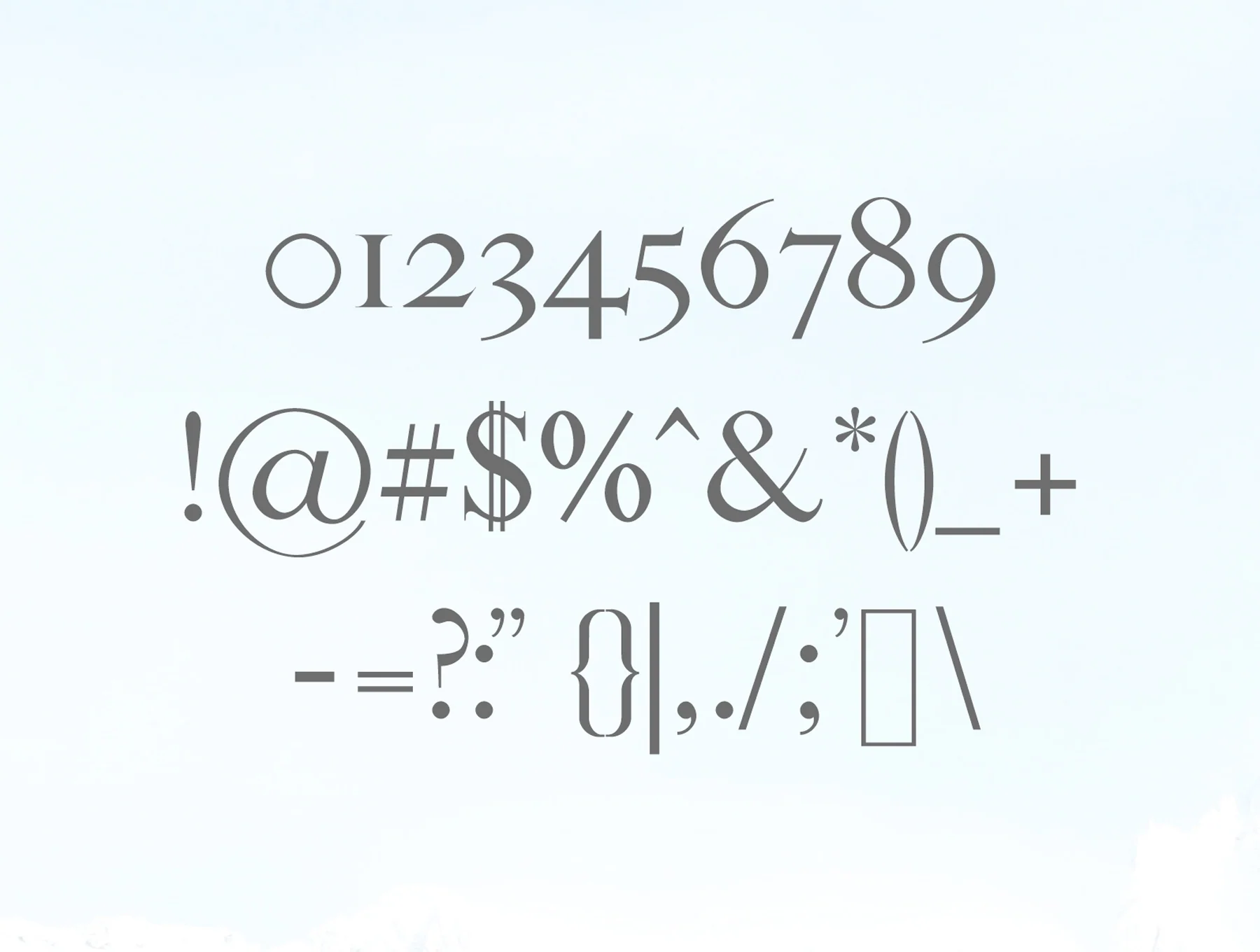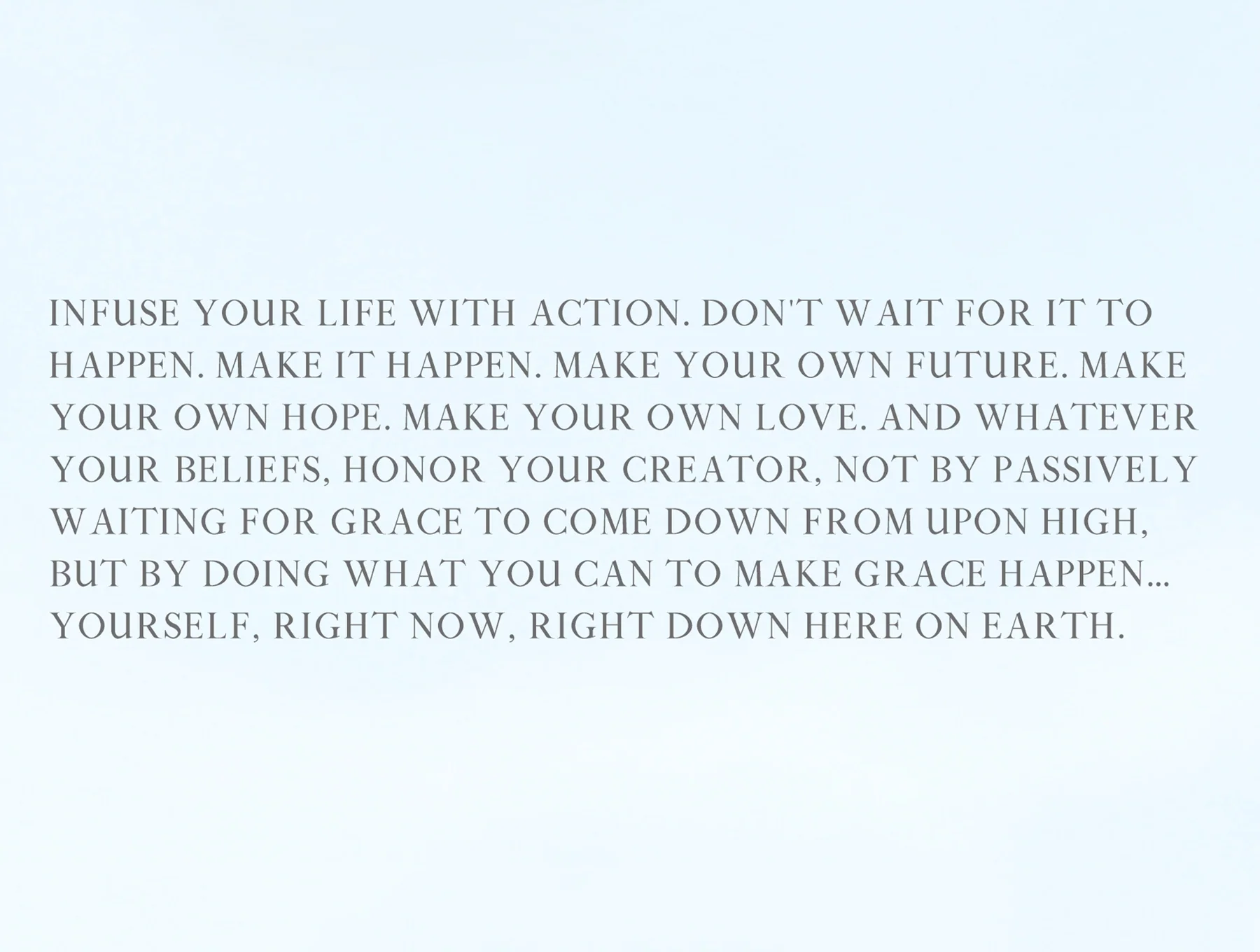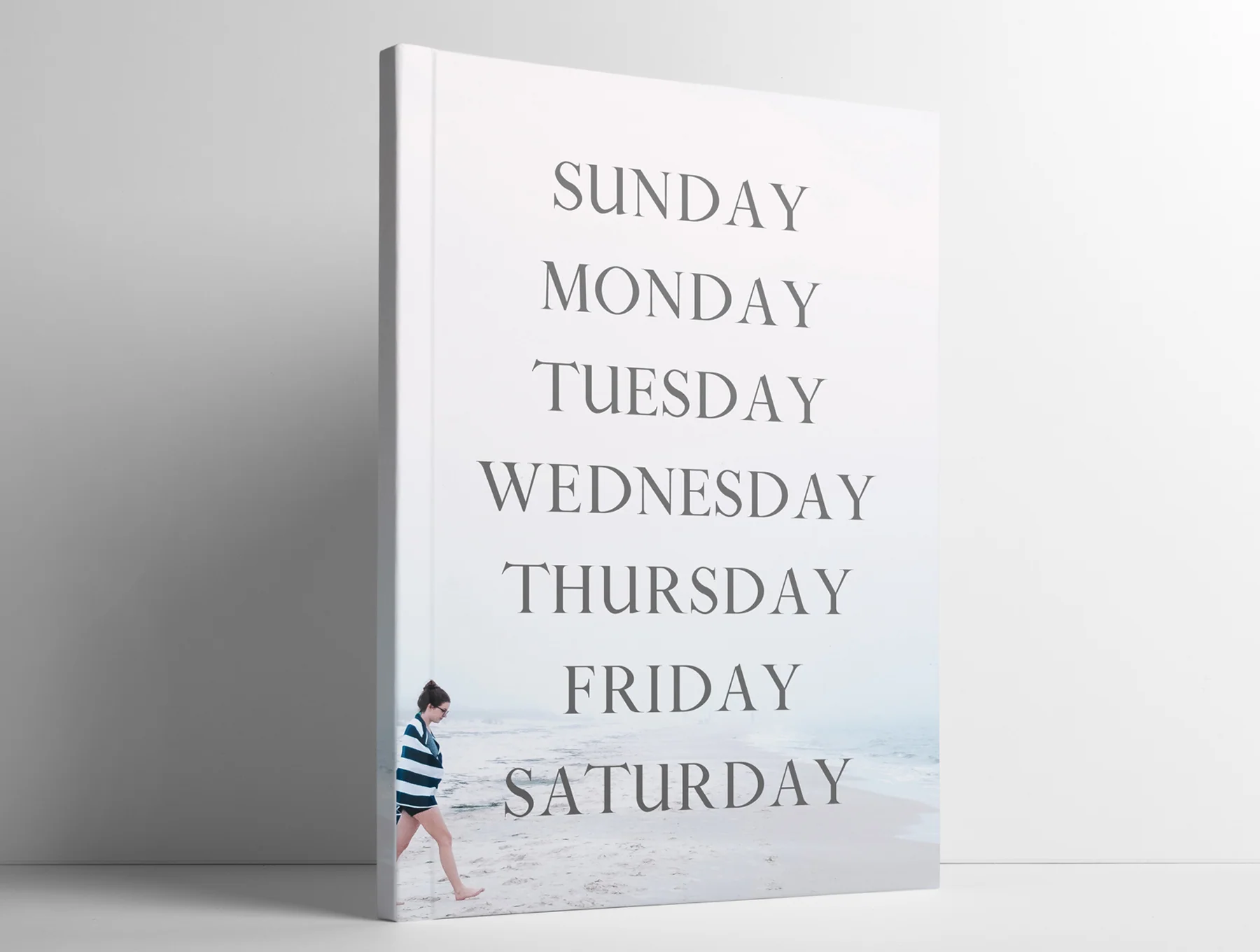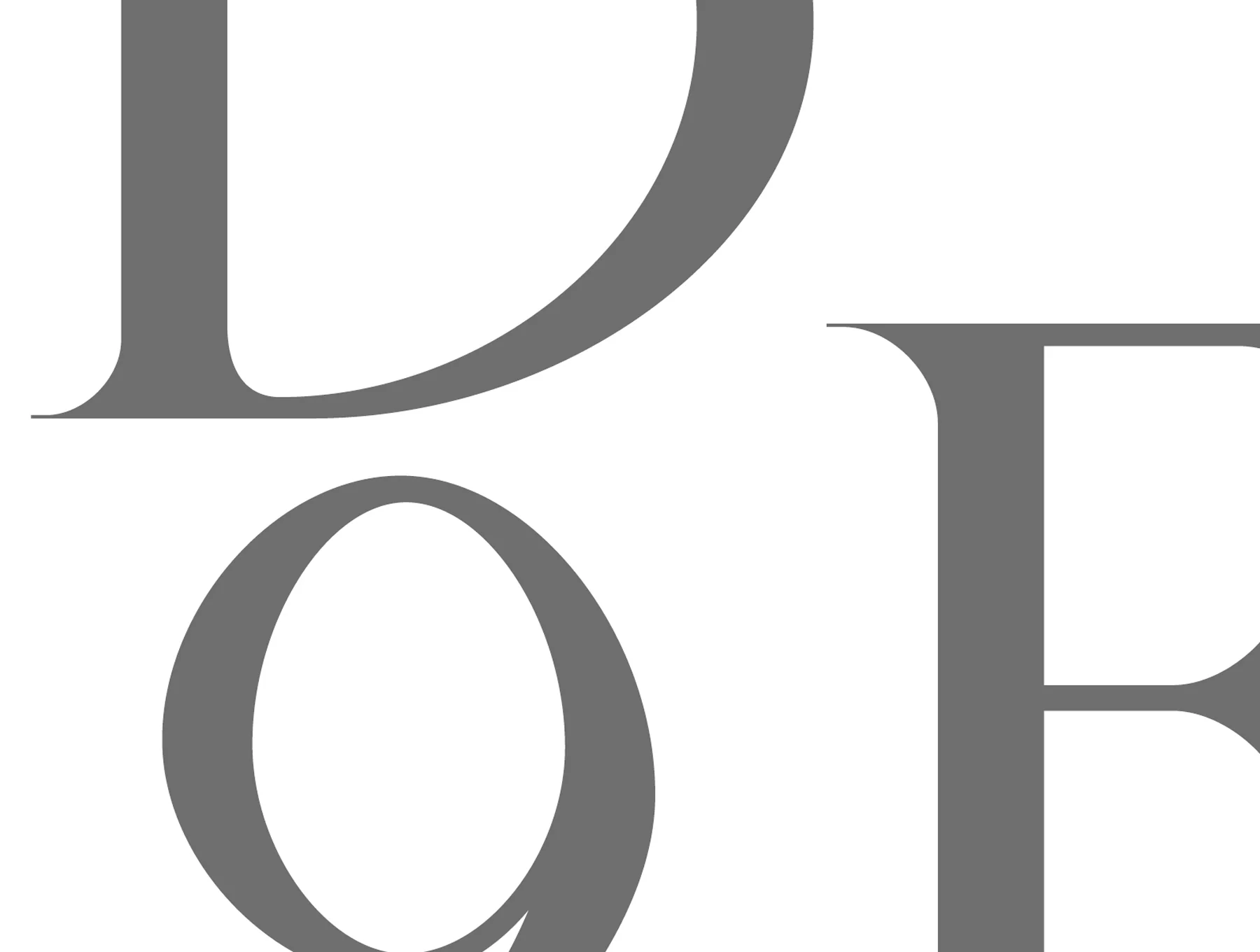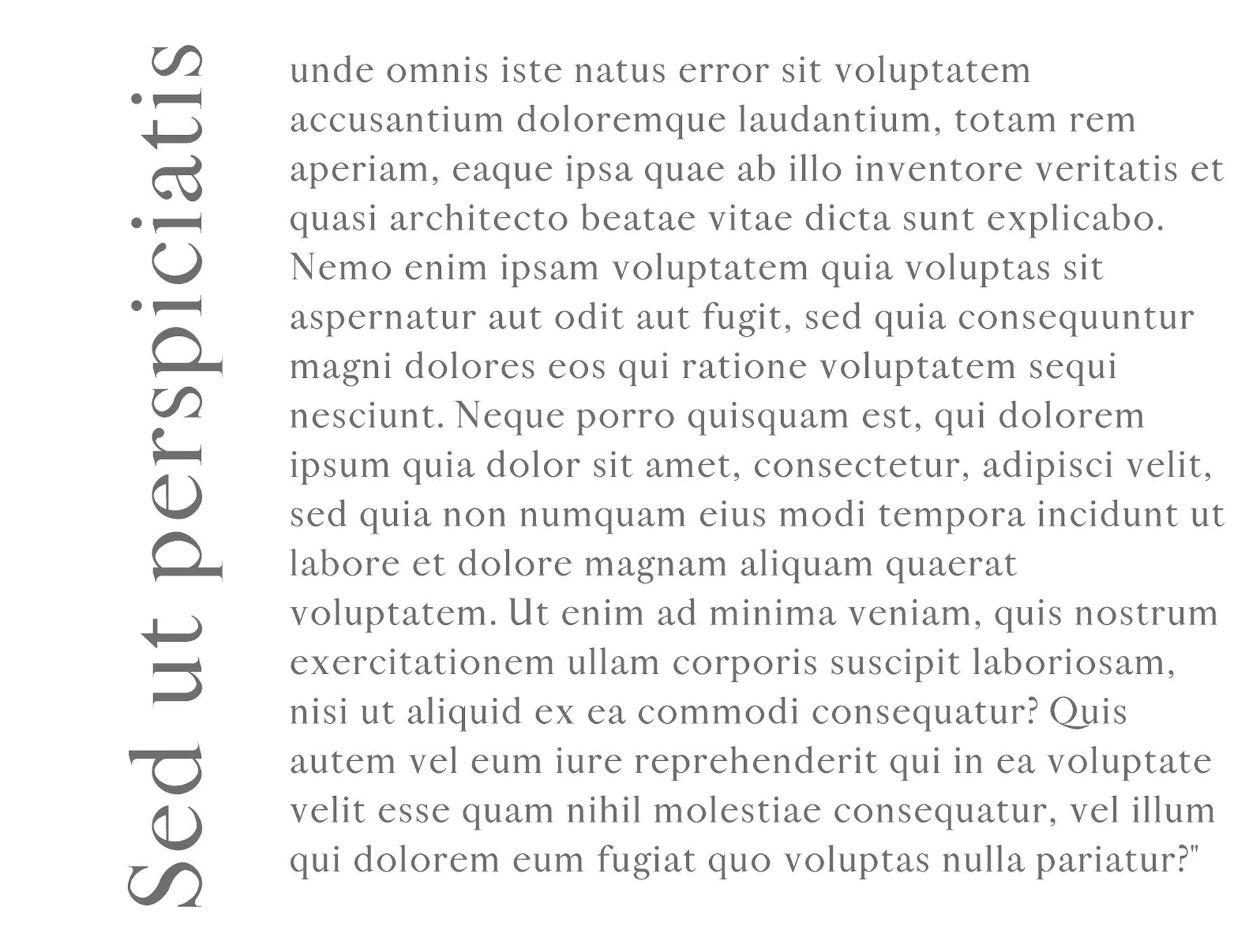
Sandover Serif Font Family
Serif-style font family
Includes 265 characters
Regular, Thin, Light, Round and Bold weight options
Sandover is an elegant serif font family with 5 weights, essential glyphs, and multilingual characters. Ideal for headlines, posters, branding, packaging, presentations, logos, quotes, titles, magazine headers, web layouts, ads, invitations, books, and many creative projects.